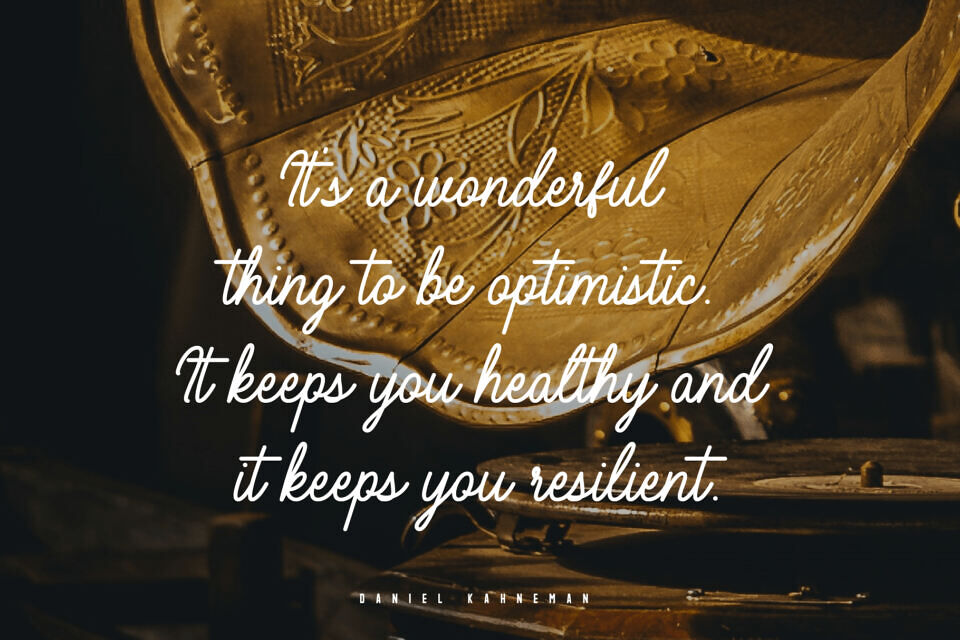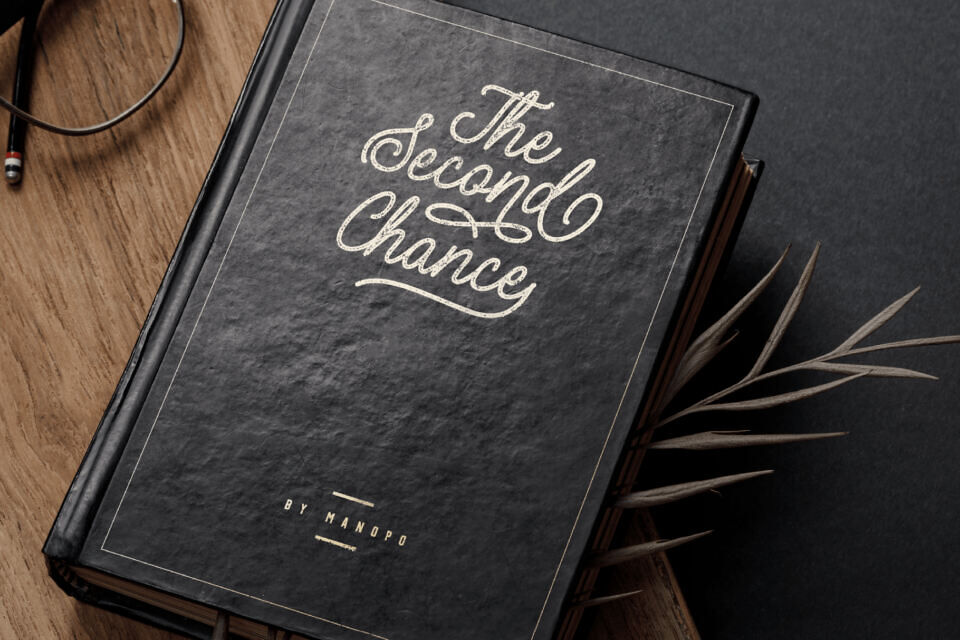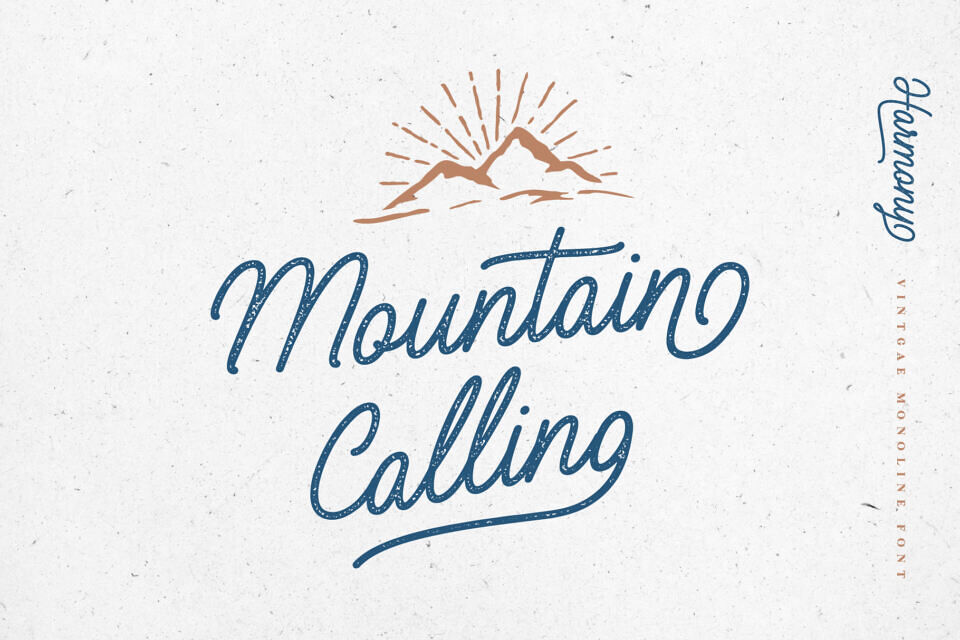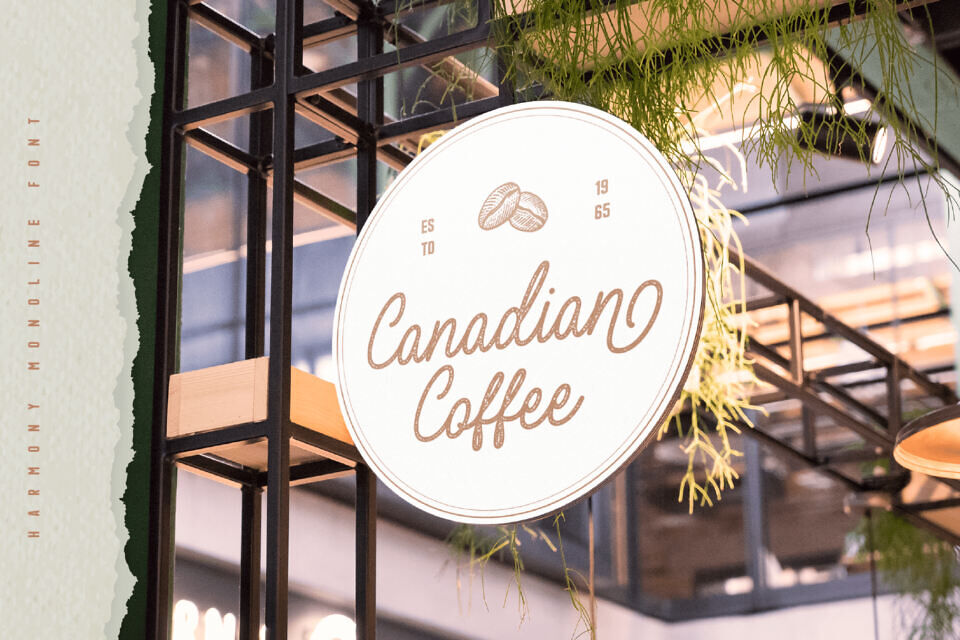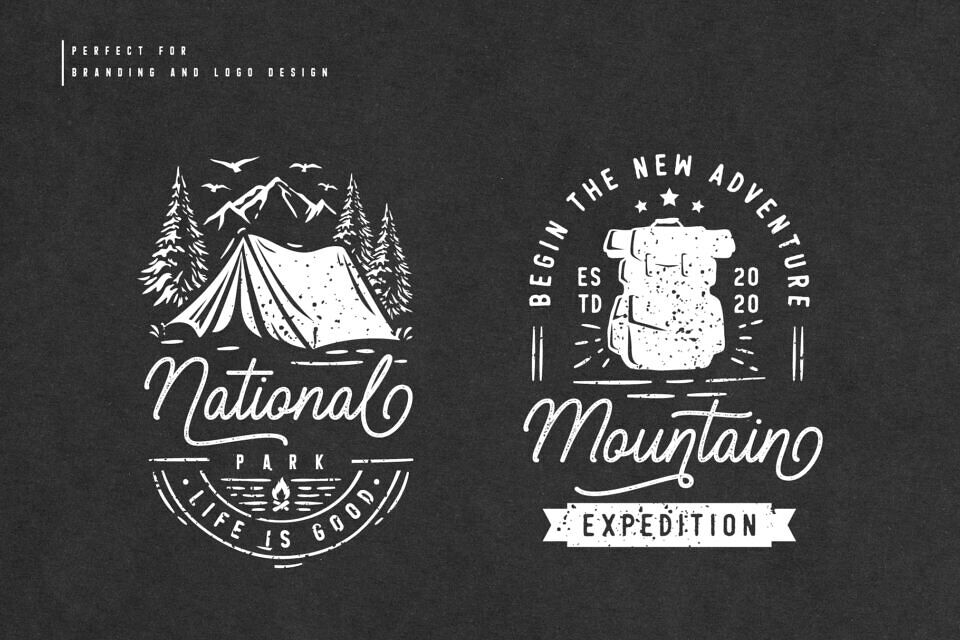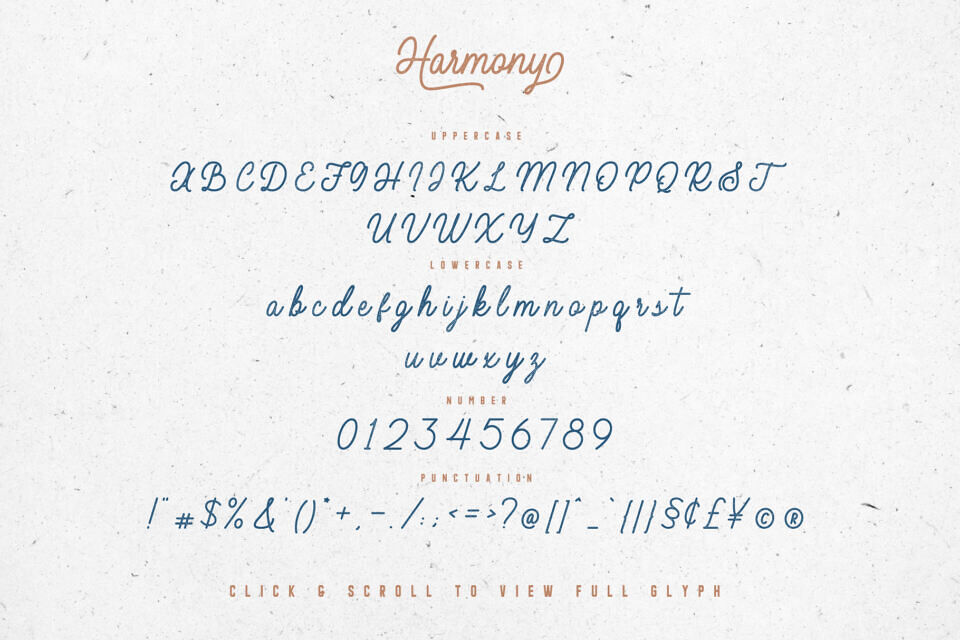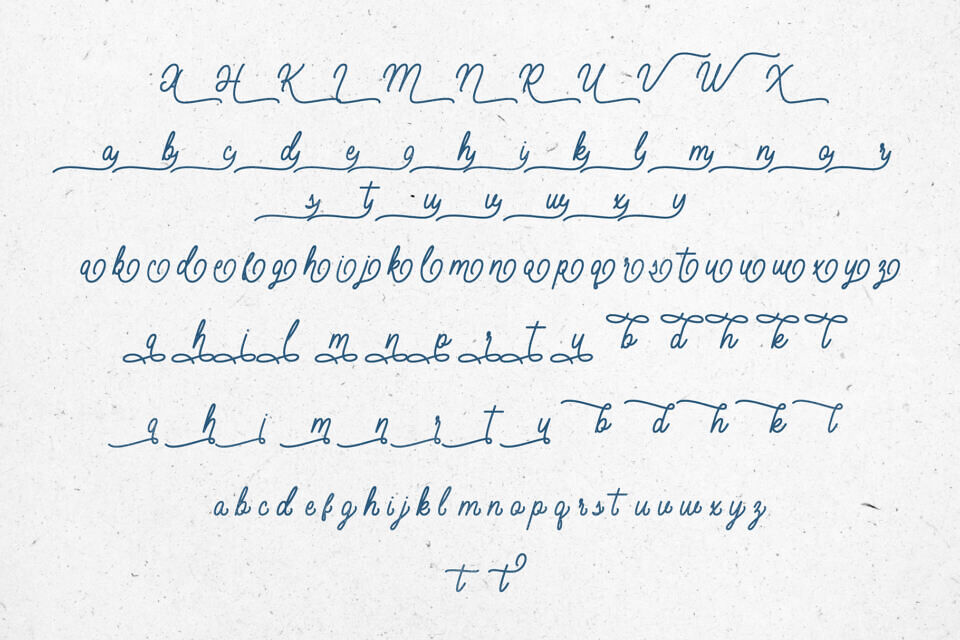
Harmony Font
Harmony comes with 2 styles that have their own characteristics.
• Harmony Regular: has a clean and elegant style. This font has a more modern feel, so you can apply it to modern-themed projects.
• Harmony Stamp: this font has a rough style both in the middle and the edges of each letter, this font has a vintage feel and can be applied to various needs,
This font has 114 awesome alternates and has 311 total glyphs, there are various kinds of alternates that you can use as you wish.